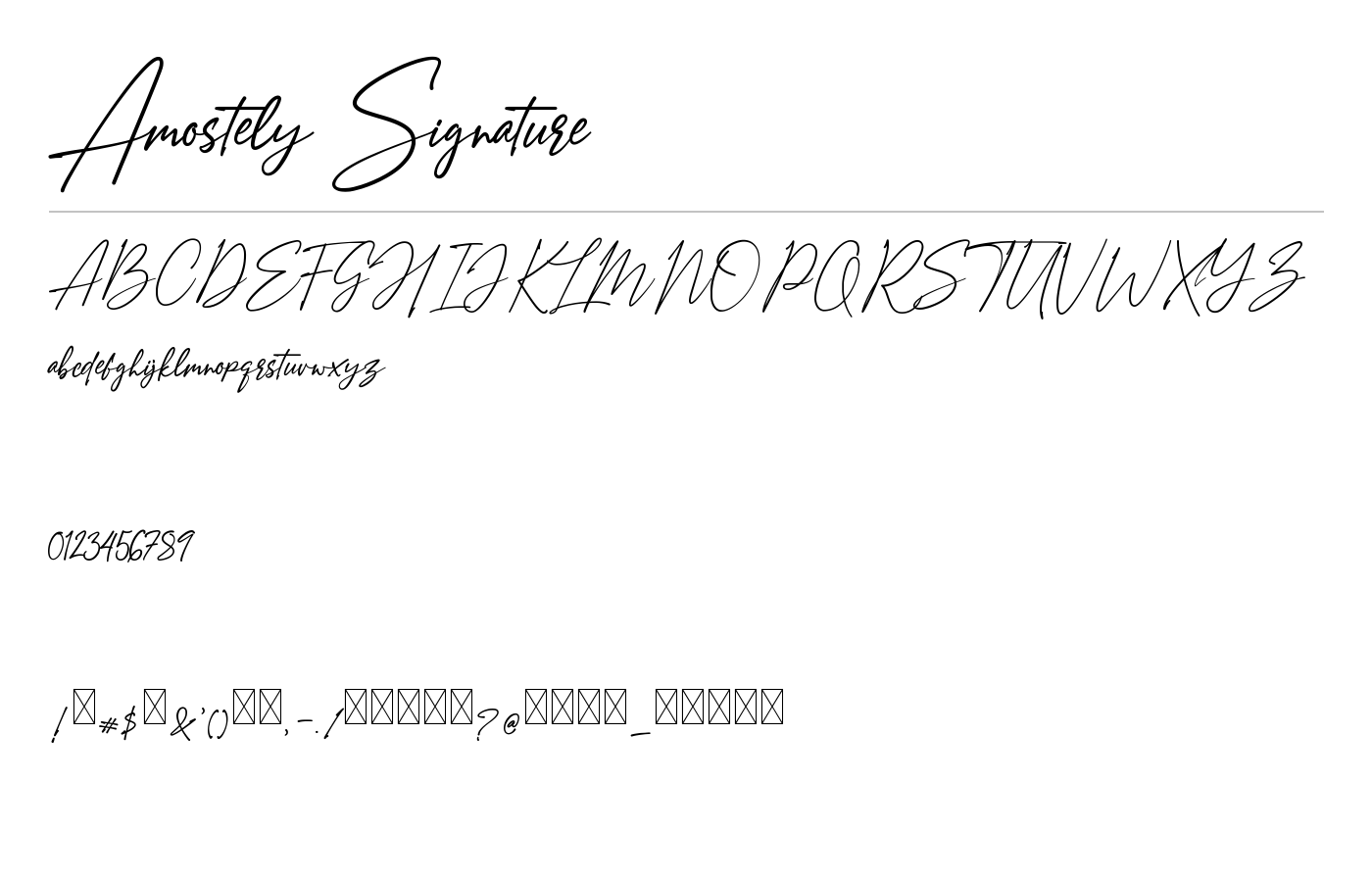
Amostely Signature Font is a delicate, modern script typeface that mimics elegant handwritten signatures with its slender, flowing lines and subtle variations in stroke weight. Its tall, airy letterforms and natural, casual feel make it perfect for personal branding, invitations, and stylish logos where a refined yet approachable look is desired. This font works beautifully in designs that seek to convey authenticity, sophistication, and individuality.
Amostely Signature Font